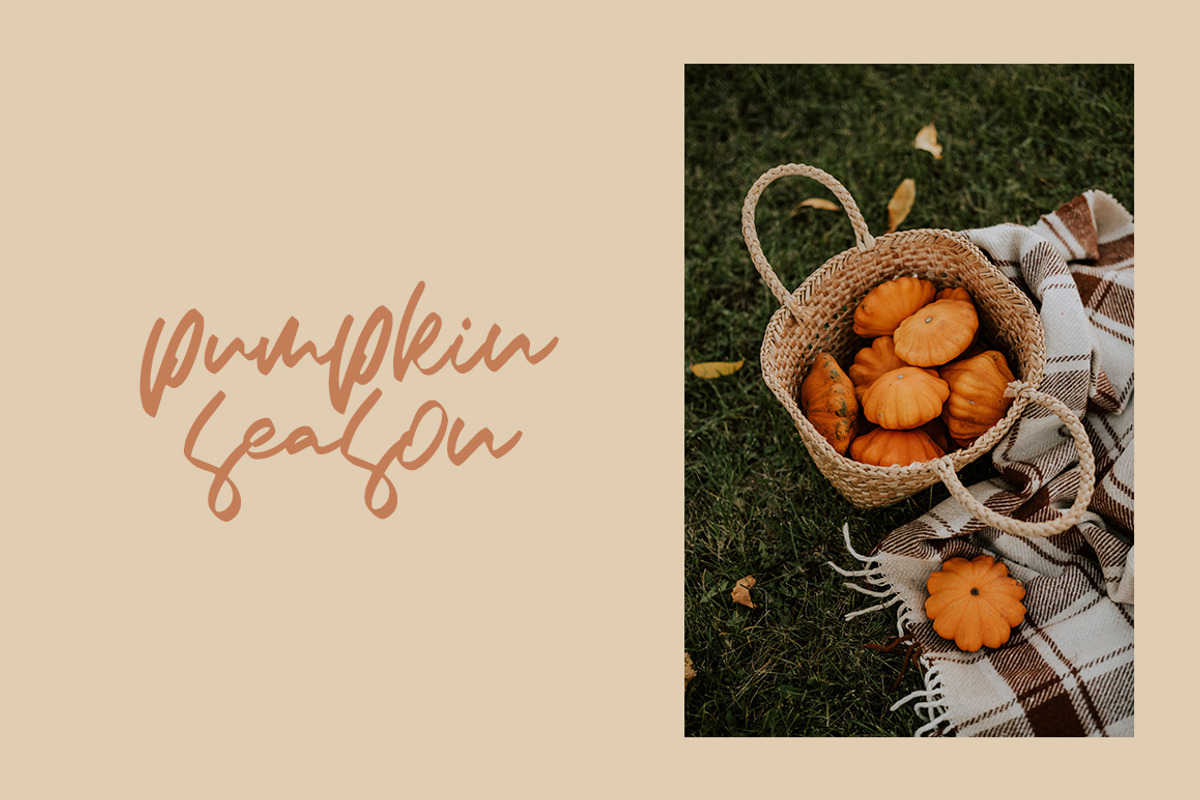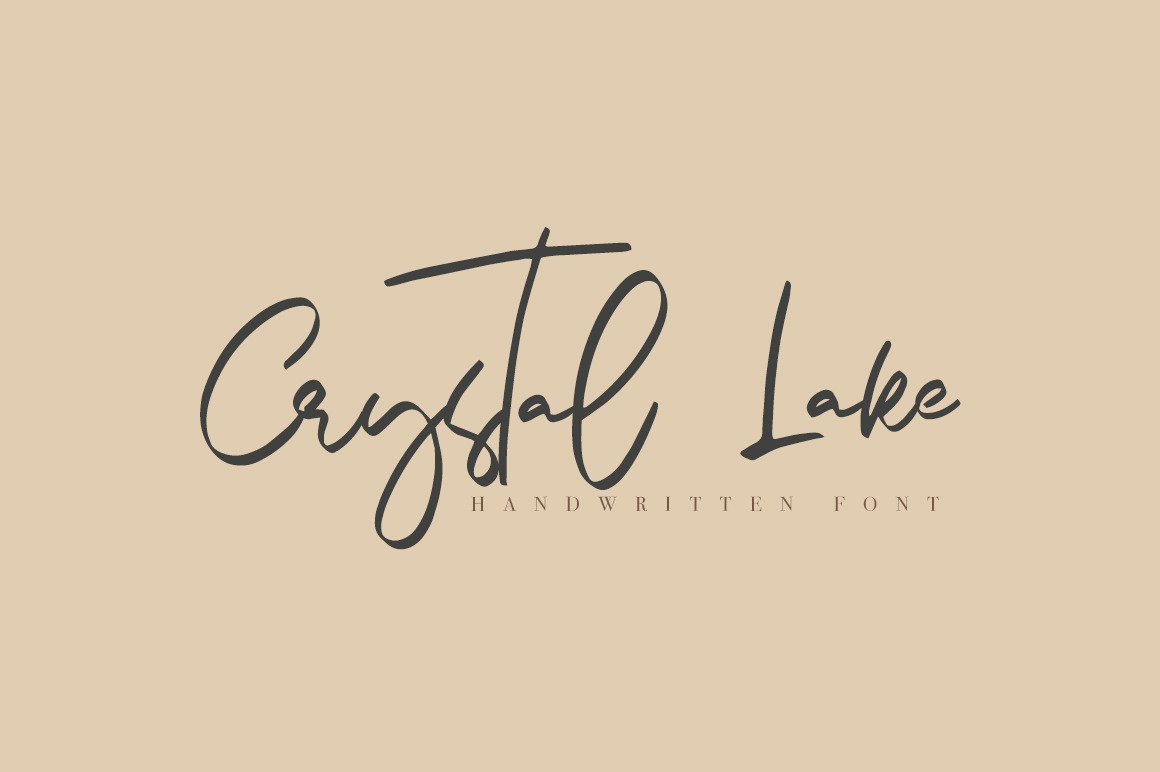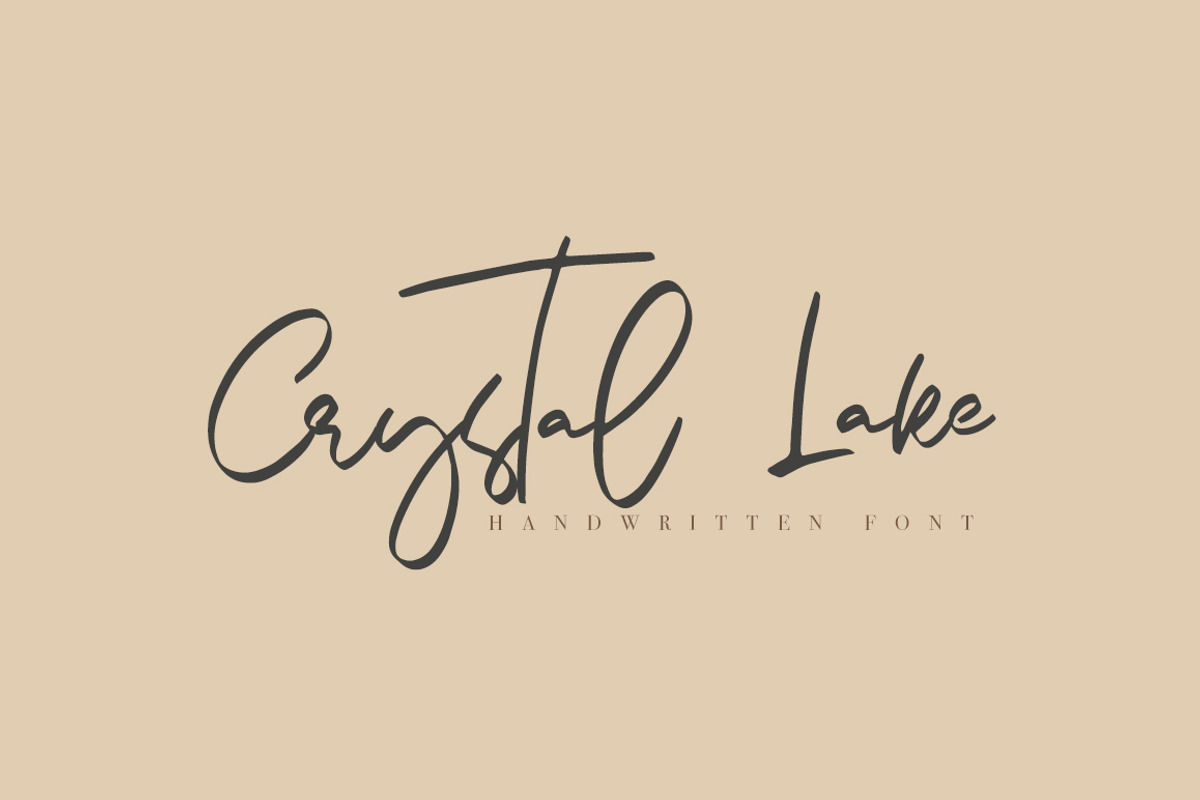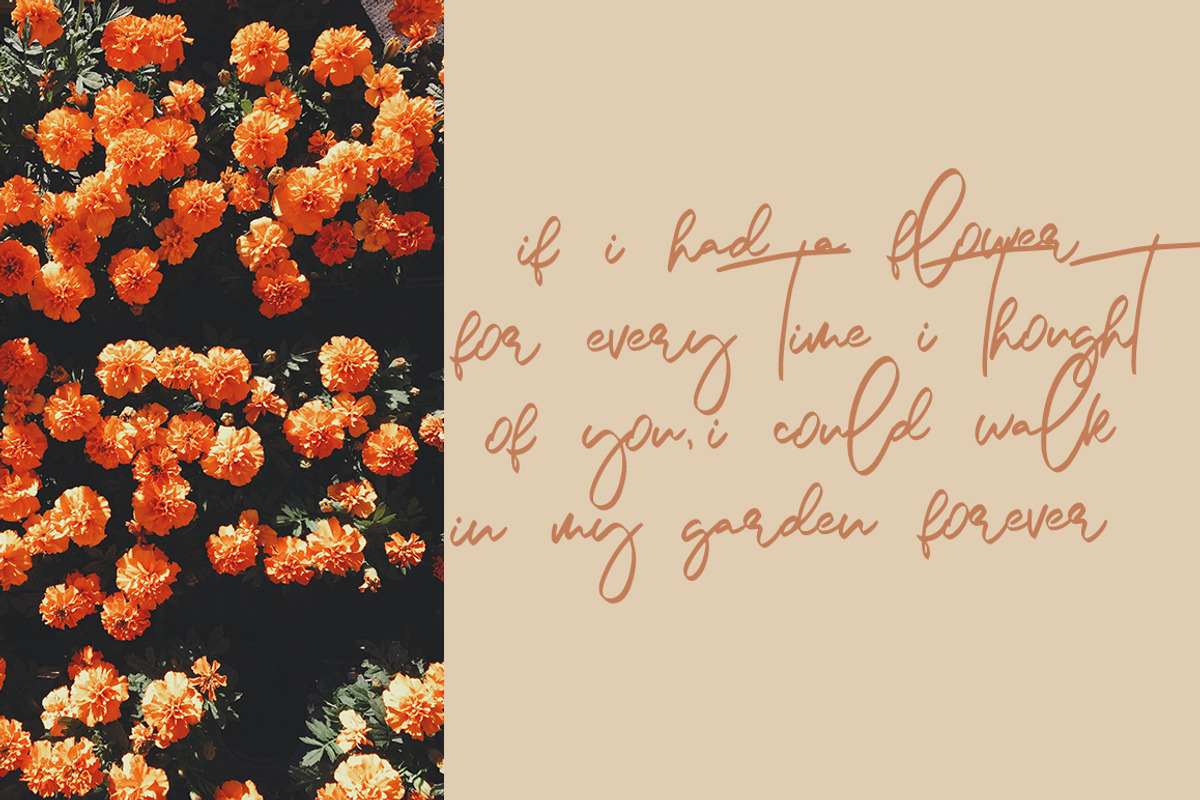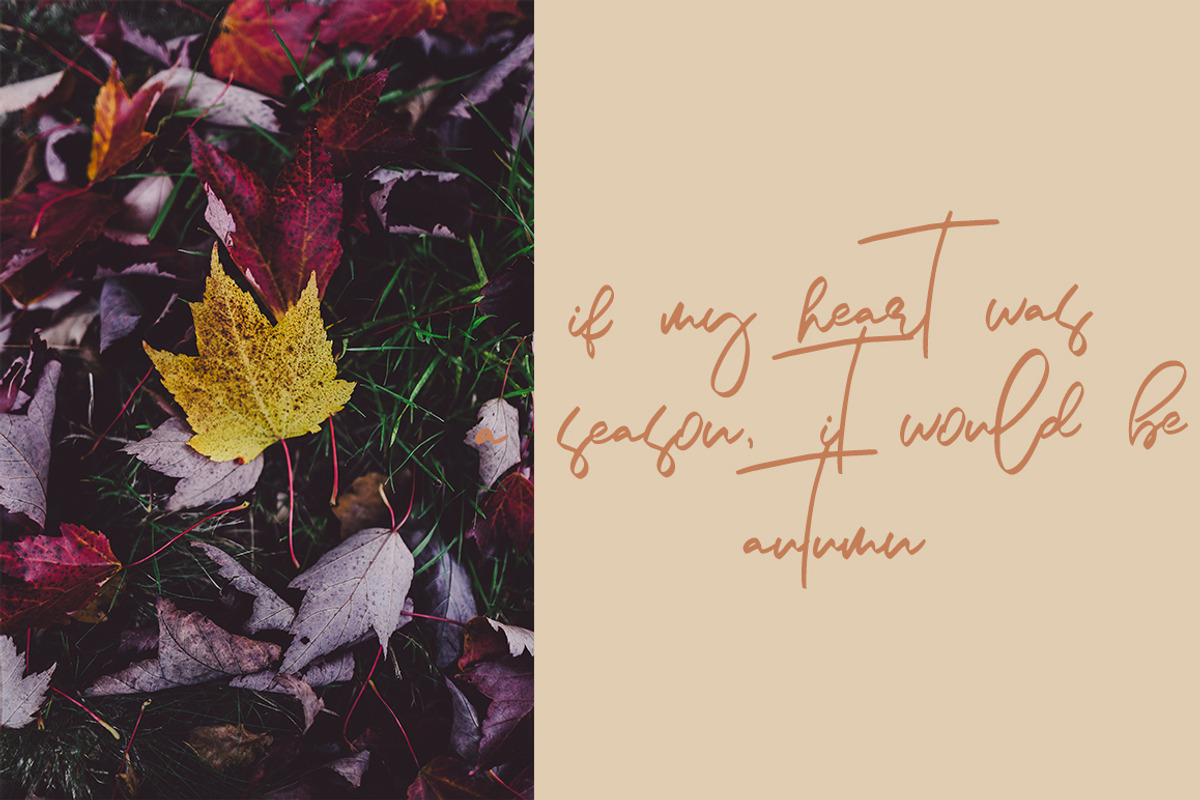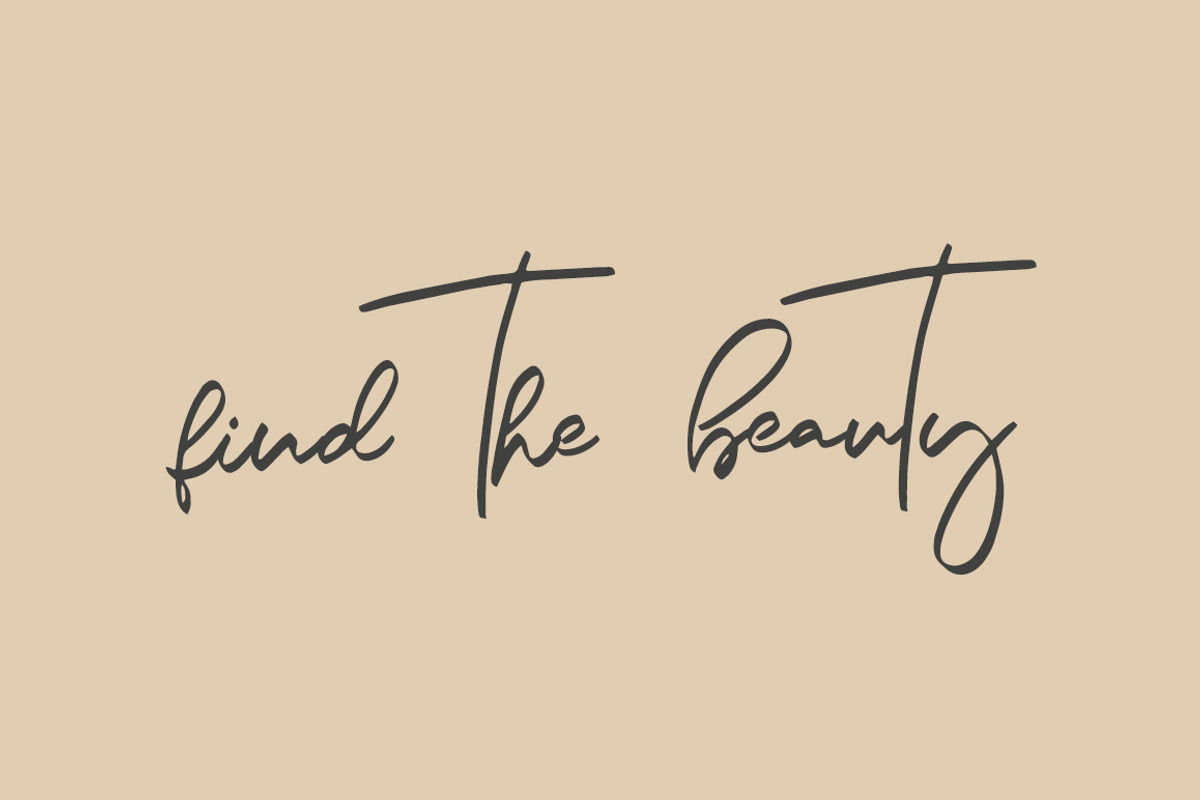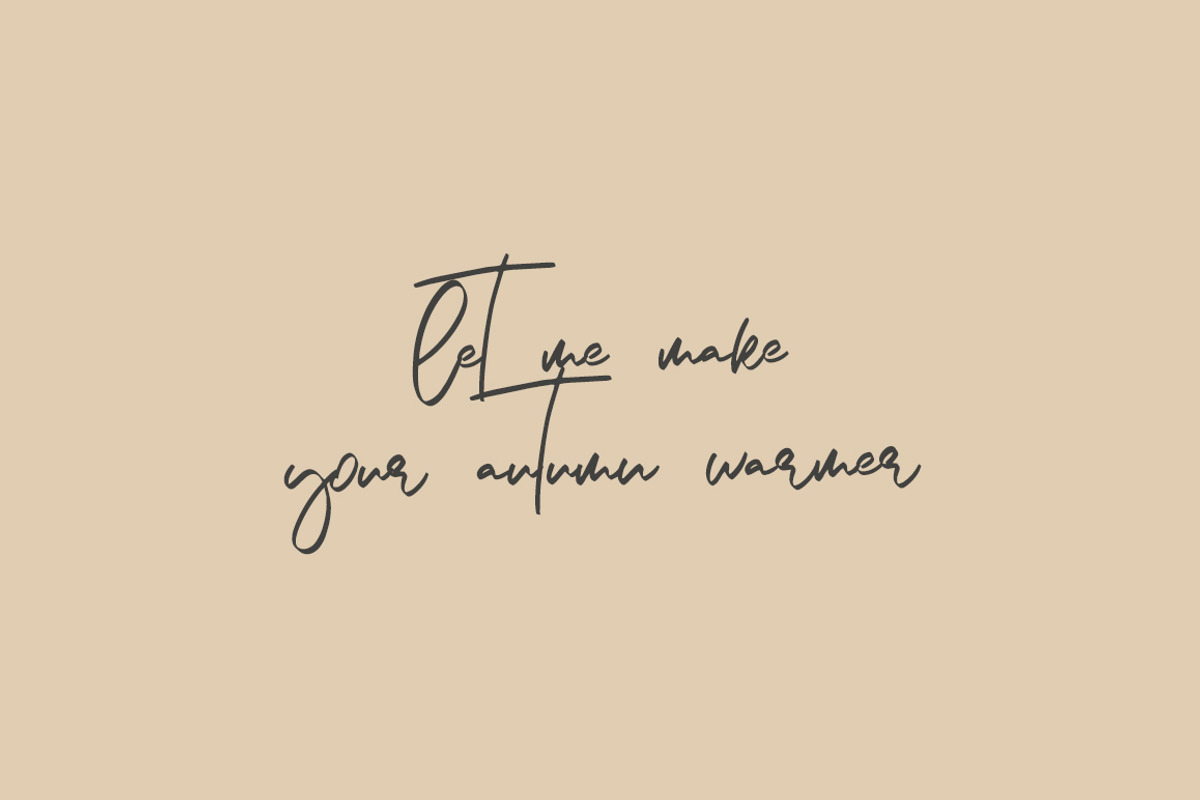
Crystal Lake Handwritten Font
Crystal Lake is sweet and playful, but also Crafty. This versatile script font has a wide range of applications ranging from greeting cards to kids’ crafts, and is guaranteed to add a sweet touch to your next design. With modern style this font will perfect for many different project ex: logo, photography, watermark, quotes, blog header, poster, wedding, branding, logo, fashion, apparel, letter, invitation, stationery, etc. The font is super versatile and suitable for any project.